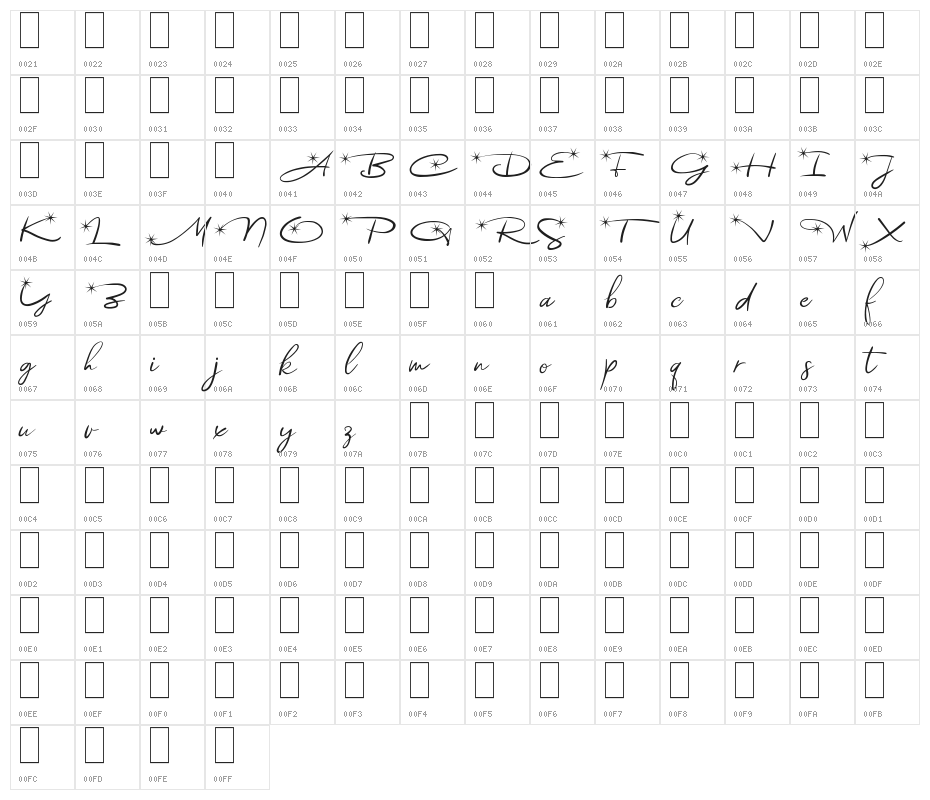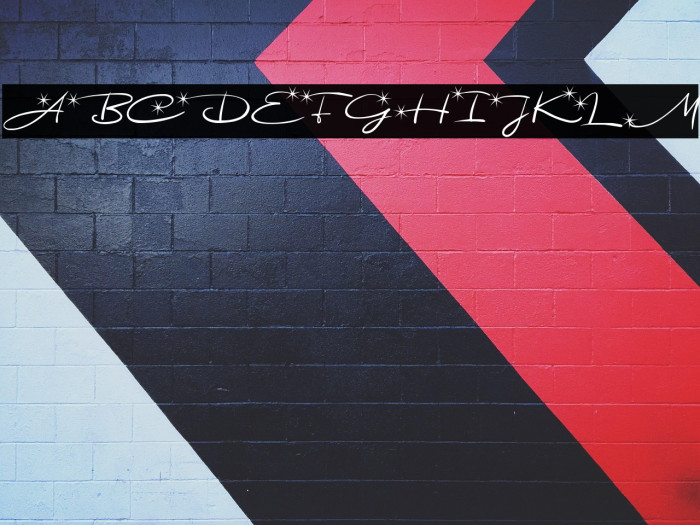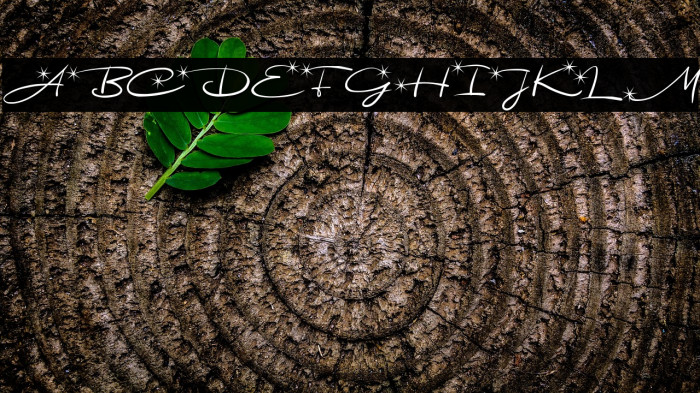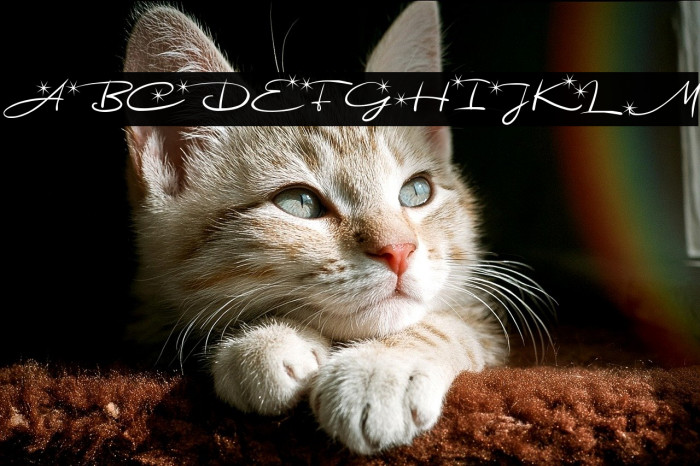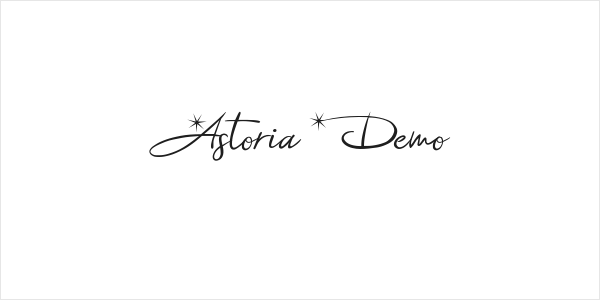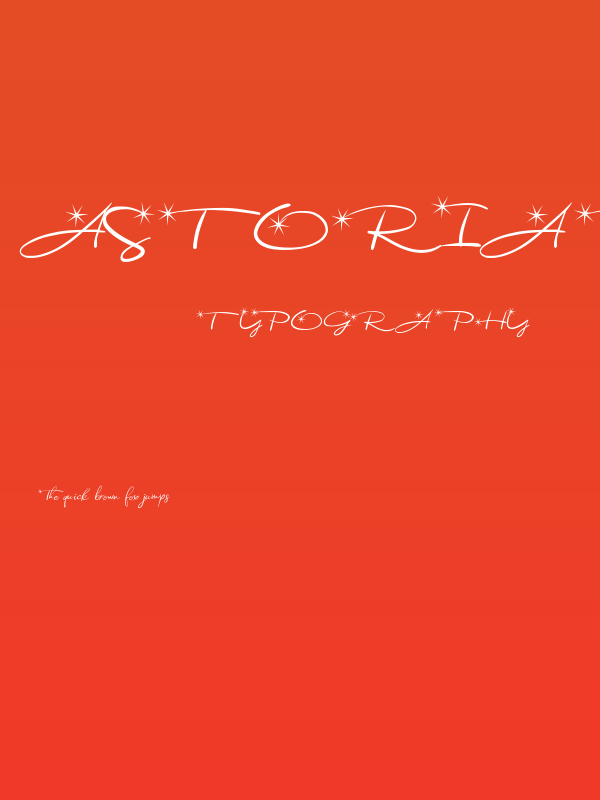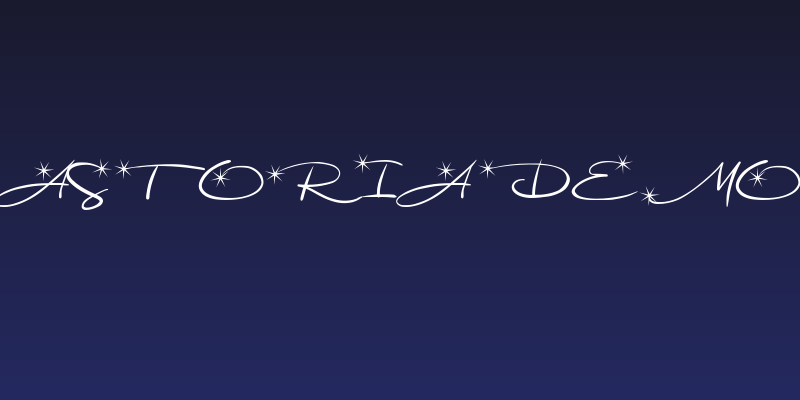
Astoria Demo Font
Astoria Demo Description
This font features an elegant and whimsical script style, characterized by its flowing, cursive letters adorned with star-like embellishments. The uppercase letters are particularly decorative, with each character featuring a unique star accent that adds a touch of magic and charm. The lowercase letters maintain a smooth, connected script style, offering a harmonious balance between readability and artistic flair. The numbers and special characters are designed to complement the overall aesthetic, ensuring consistency across all text elements.
| Proposed Projects | Ideal for wedding invitations, greeting cards, branding projects, and any design requiring a touch of elegance and whimsy. |